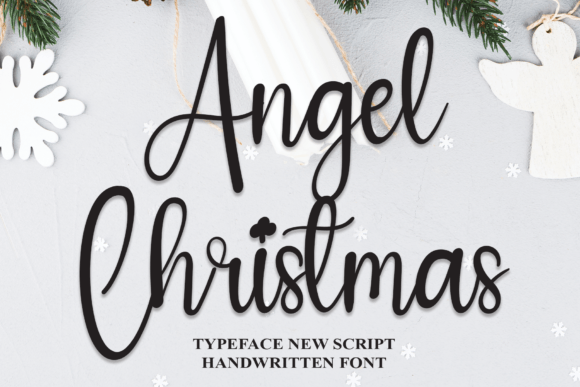
Introducing Angel Christmas Font, a charming and endearing handwritten font that will add a touch of whimsy and playfulness to your creative projects. With its effortless flow and delightful curves, this script font is perfect for adding a personal touch to your designs.
Whether you're a seasoned graphic designer or just starting, Angel Christmas Font is a versatile choice that will elevate your projects to new heights. Its enchanting style makes it ideal for creating eye-catching logos, heartfelt invitations, heartwarming greeting cards, and captivating social media posts.
With Angel Christmas Font, the possibilities are endless. Embrace the magic of creativity and let your imagination soar. Craft unique designs that resonate with your audience and leave a lasting impression.